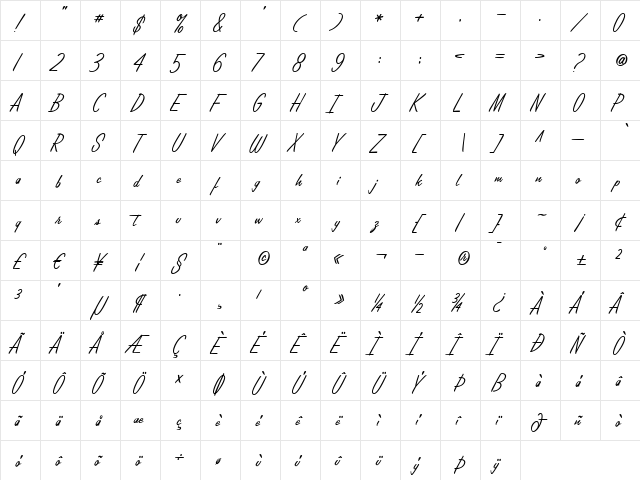
LamplighterScript Regular Font Preview
Design Context for LamplighterScript Typeface
LamplighterScript brings a calligraphic fluidity to the page — its connecting strokes and expressive curves give it an unmistakably human quality. Its slender proportions lend an understated elegance to any composition.
Font Pairing: Combine LamplighterScript with a simple geometric sans for maximum contrast — the tension between flowing curves and clean structure is a classic typographic pairing.
Pro Tip: Pair LamplighterScript with a clean sans-serif for supporting text. The contrast between fluid script and geometric structure creates an elegant typographic hierarchy.